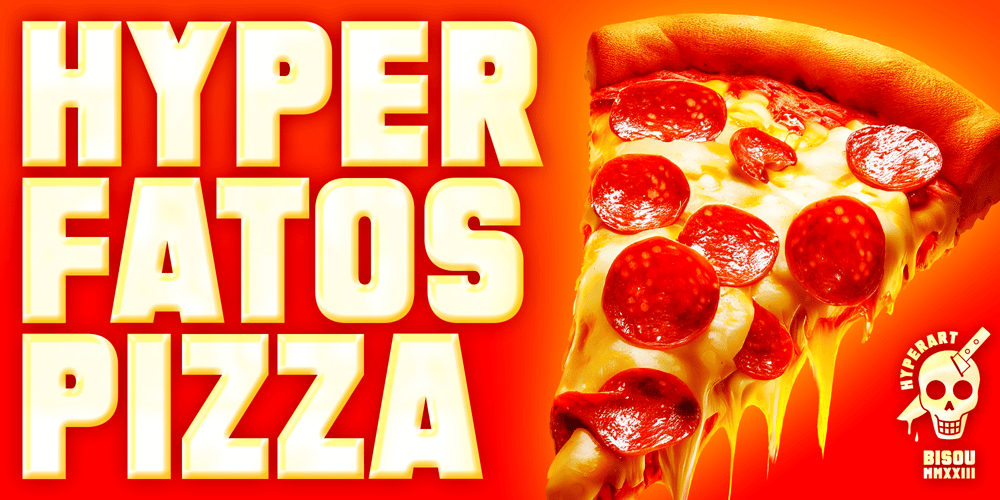
Hyper Fatos Font Family was designed by Mathias Antonietti and published by Bisou. Hyper Fatos contains 4 styles and family package options. Crafted with passion in La Chaux-de-Fonds, Switzerland, the Hyper Fatos typography was born in a moment of pure delight as the creator (Bisou) indulged in a delicious pizza. Inspired by the excitement and satisfaction that come from the most indulgent culinary pleasures, he designed this unique typography to capture the essence of gluttony and the irresistibility of the most appetizing dishes.Hyper Fatos was meticulously crafted to evoke an undeniable sense of indulgence. Its boldness and rounded forms bring to mind juicy hamburgers, crispy fries, and donuts overflowing with icing. It’s the perfect typography for fast-food restaurant signs, tantalizing menus, or even advertising campaigns for giant burgers and decadent milkshakes.Picture Hyper Fatos in bright letters above a hot dog stand, and you’ll see lovers of greasy food rushing to satisfy their most voracious cravings. This typography is the ultimate choice to whet your customers’ appetites and encourage them to indulge in culinary delight.